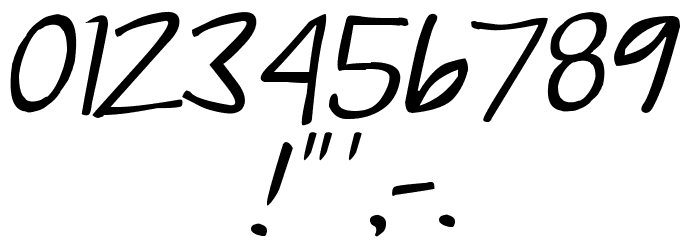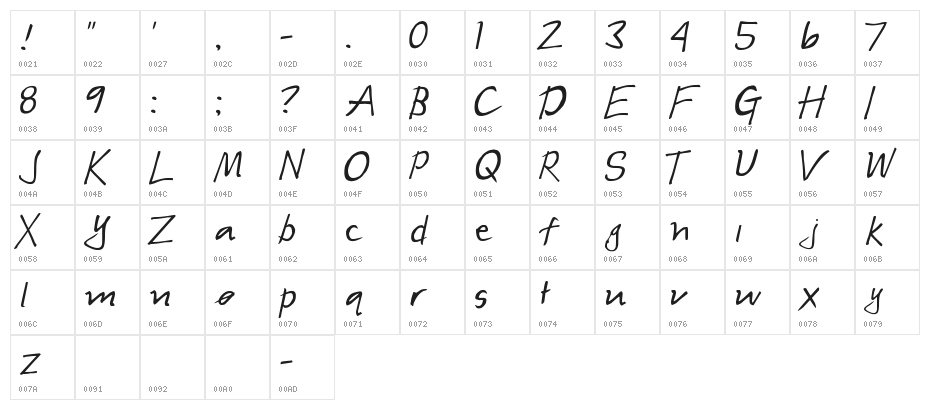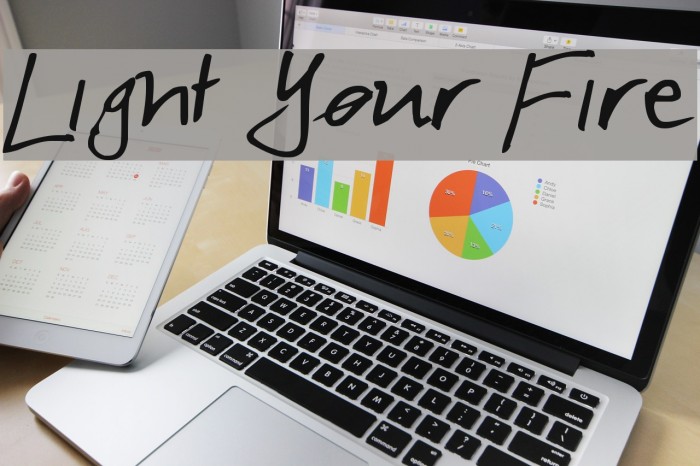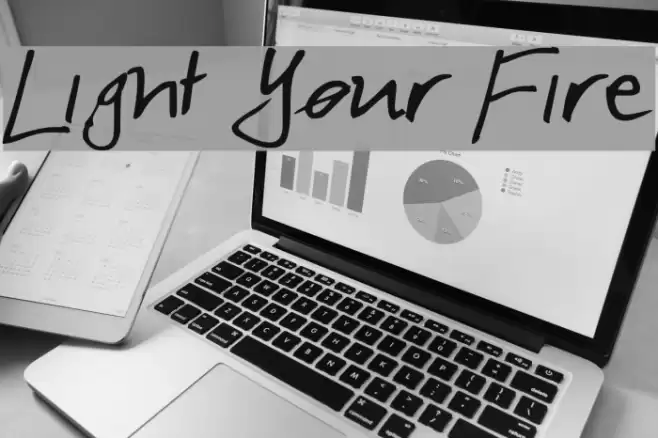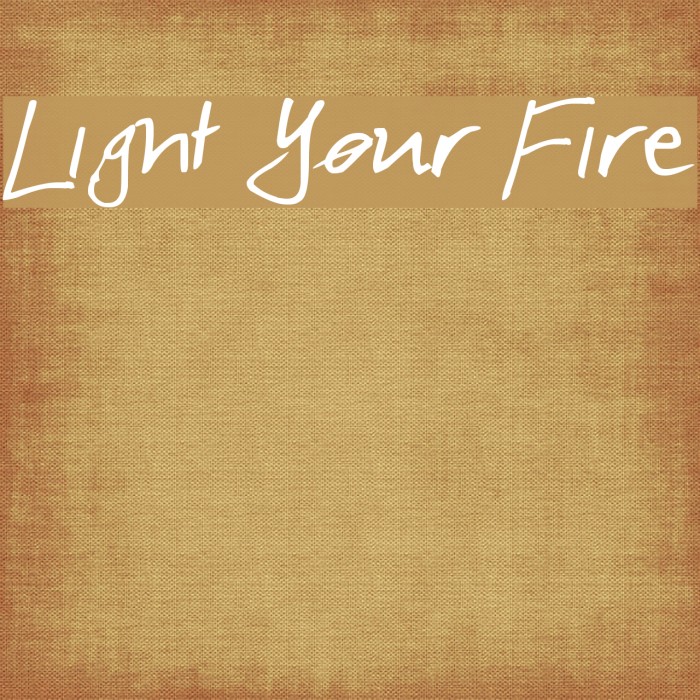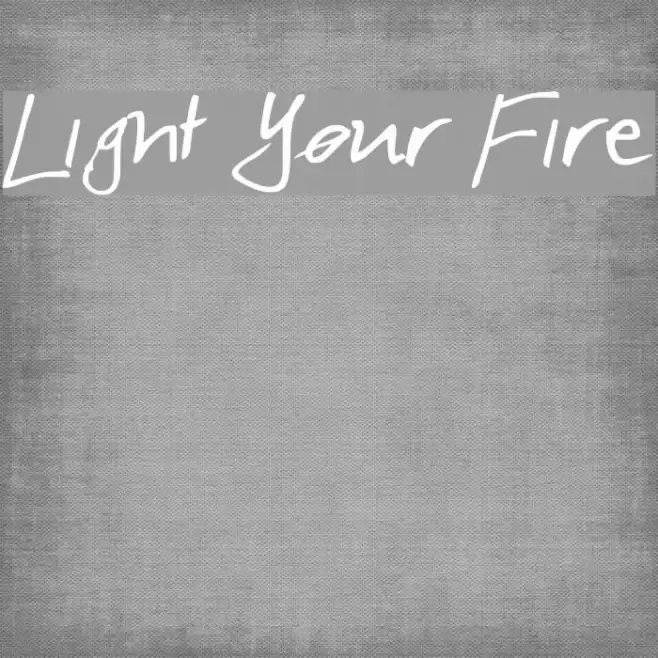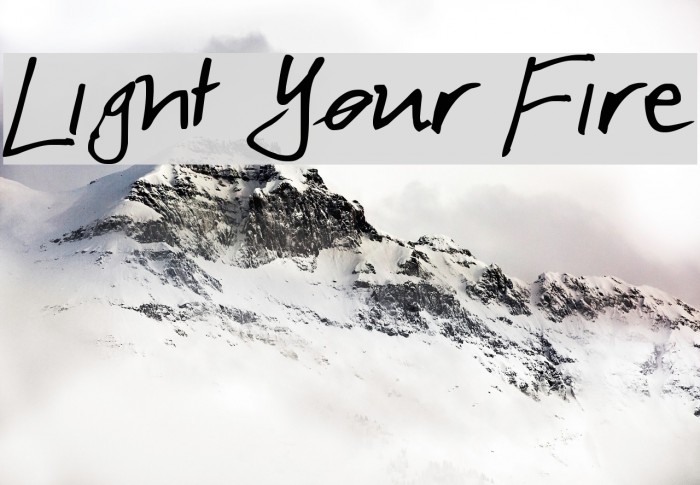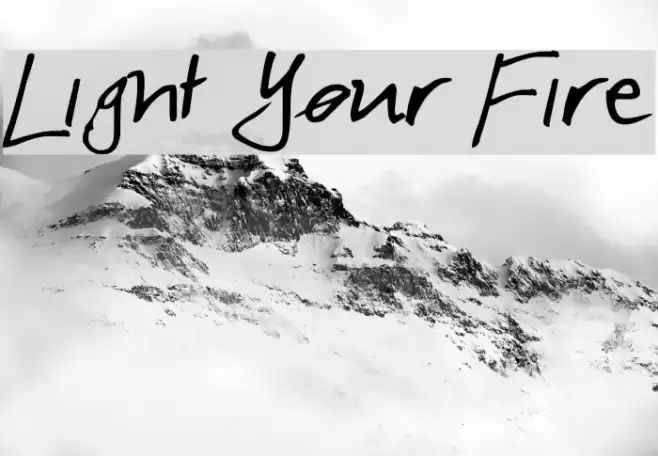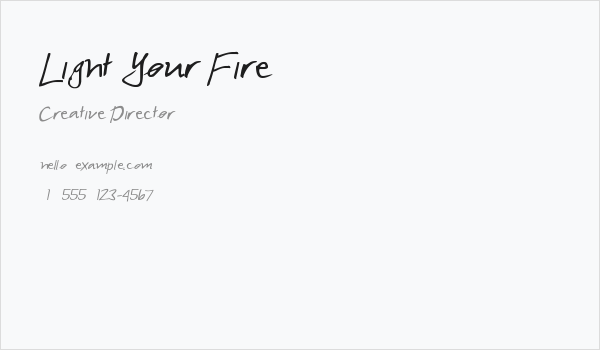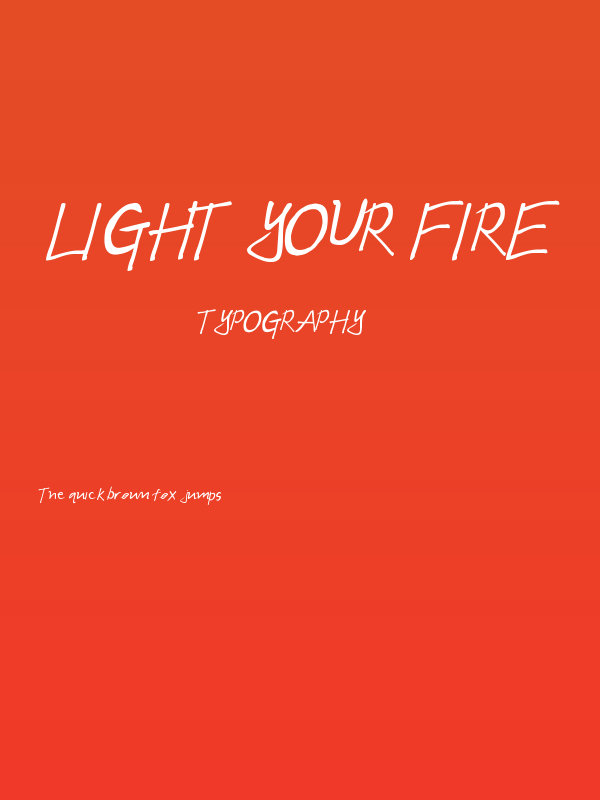
Light Your Fire Font
Light Your Fire Description
This font features a dynamic and energetic script style, characterized by its fluid and slightly irregular strokes that mimic the natural flow of handwriting. The uppercase letters are bold and expressive, with a slight slant that adds to the overall movement of the text. The lowercase letters maintain a consistent style, with some characters featuring unique loops and curves that enhance the handwritten feel. Numbers are clear and legible, matching the style of the alphabet. Special characters are thoughtfully designed to integrate seamlessly with the rest of the font, making it versatile for various uses.